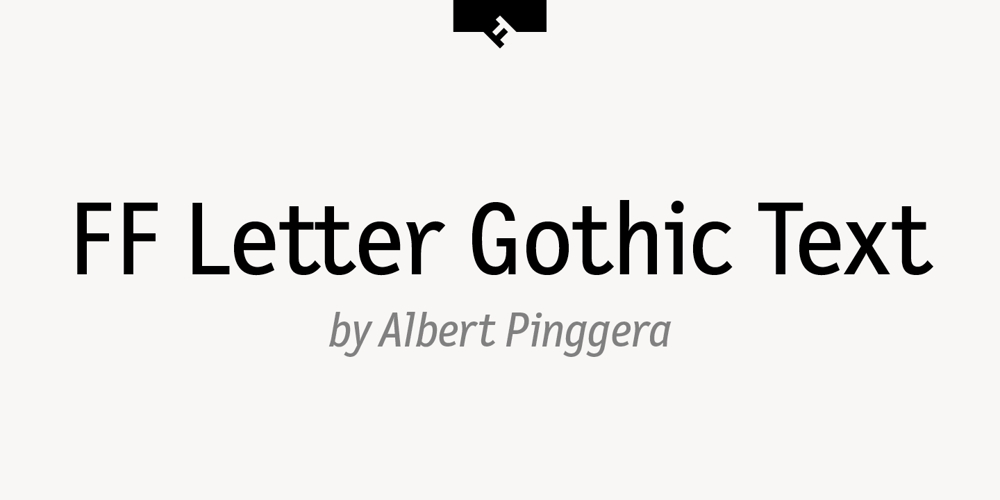
FF Letter Gothic Text Font Family was designed by Albert Pinggera and published by FontFont. FF Letter Gothic Text contains 6 styles and family package options. Italian type designer Albert Pinggera created this sans FontFont between 1996 and 1998. The family has 6 weights, ranging from Light to Bold (including italics) and is ideally suited for advertising and packaging, editorial and publishing, logo, branding and creative industries, software and gaming as well as sports. FF Letter Gothic Text provides advanced typographical support with features such as ligatures, alternate characters, case-sensitive forms, fractions, super- and subscript characters, and stylistic alternates. It comes with a complete range of figure set options – oldstyle and lining figures, each in tabular and proportional widths. This FontFont is a member of the FF Letter Gothic super family, which also includes FF Letter Gothic Mono and FF Letter Gothic Slang.